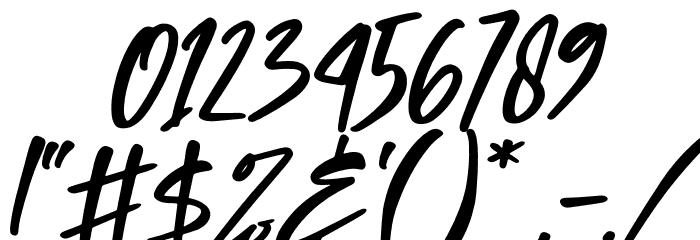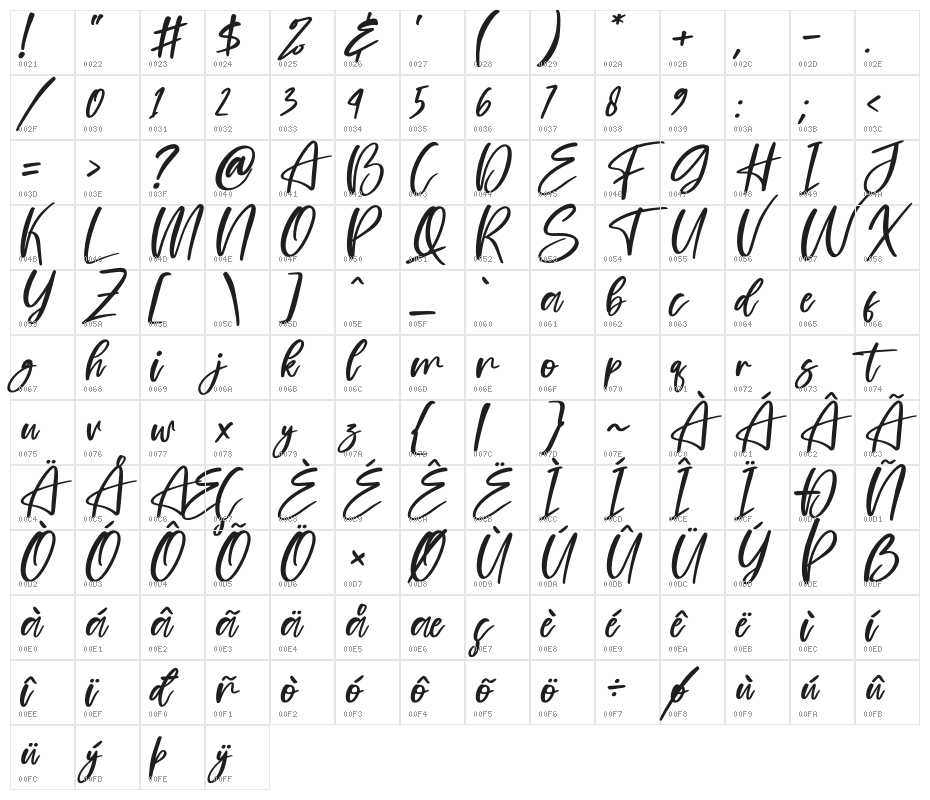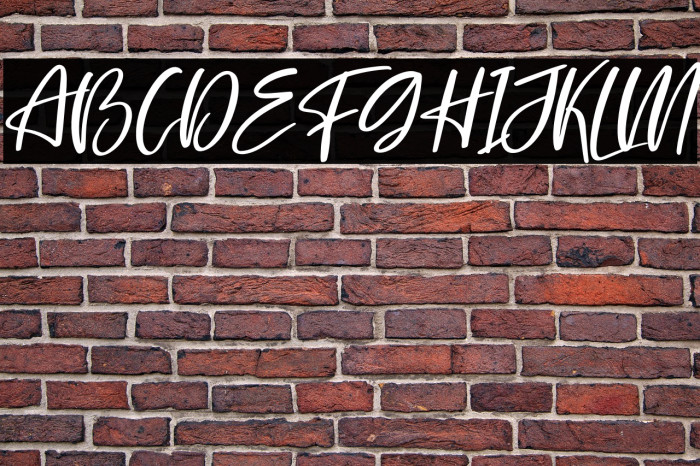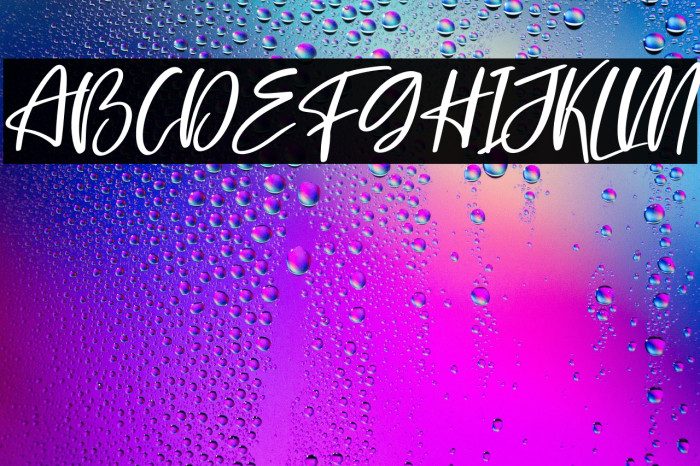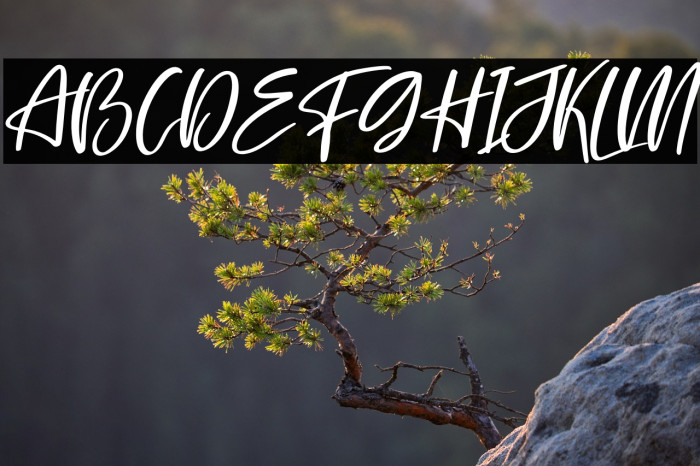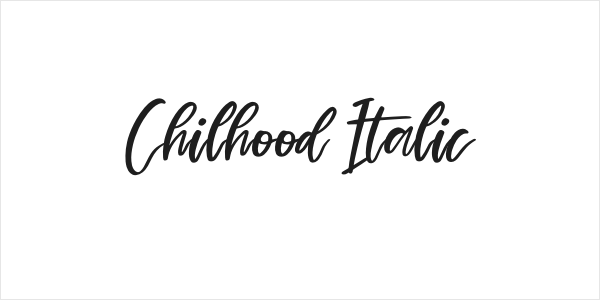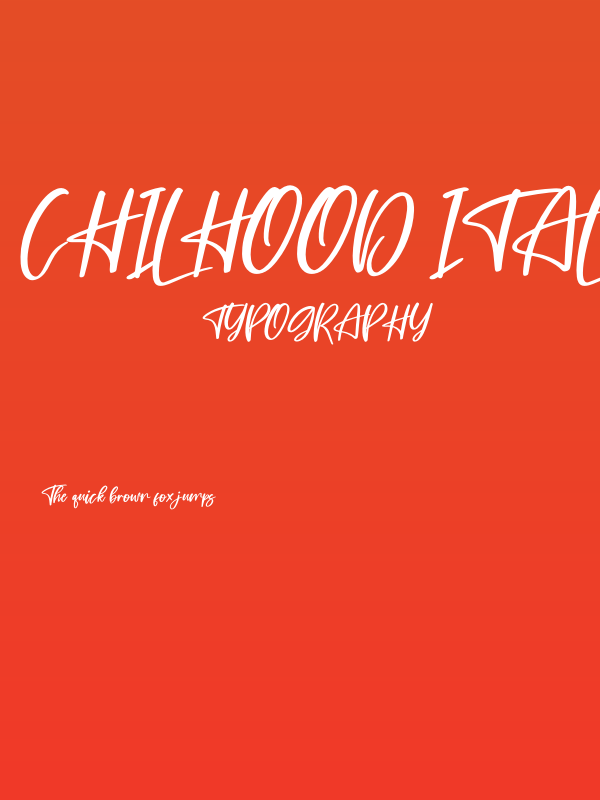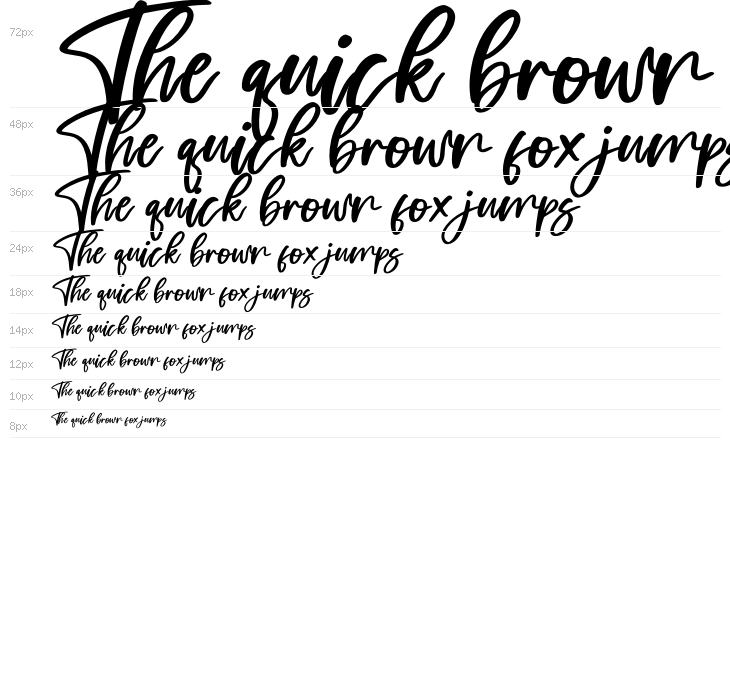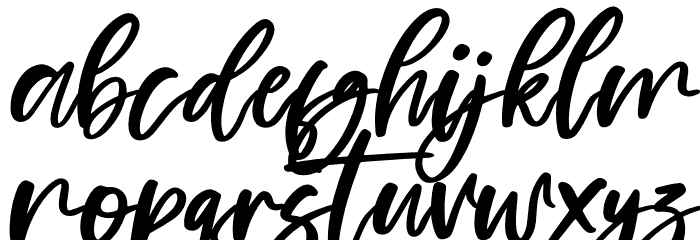
Chilhood Italic Font
Chilhood Italic Description
This font features a playful and dynamic script style with a handwritten appearance. The letters are connected in a fluid manner, giving it an energetic and lively feel. The uppercase and lowercase letters maintain a consistent flow, with the strokes varying in thickness, adding to its expressive nature. The numbers and special characters are designed to match the overall aesthetic, making it versatile for various creative applications. The font's informal and friendly look makes it suitable for projects that require a personal touch.
| Proposed Projects | Ideal for greeting cards, invitations, personal branding, and creative social media graphics. |